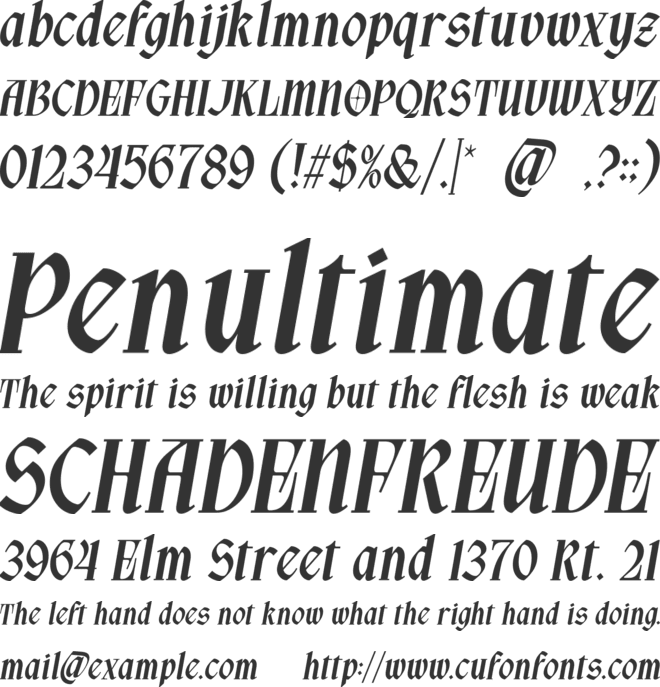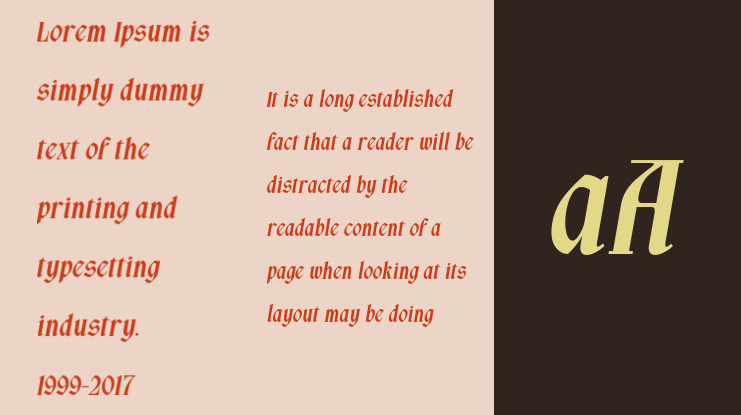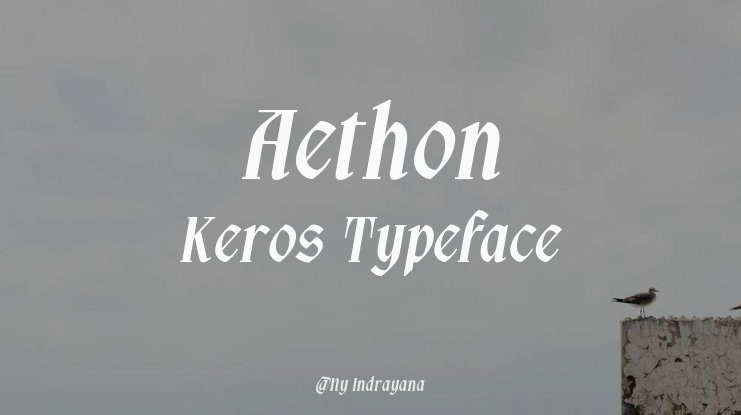
Aethon Keros Font
Where Ancient Myth Meets Future Chaos: The Ultimate Neo-Gothic Experience.
Unleash the untamed power of Aethon Keros, a blackletter typeface that refuses to be ignored. Inspired by the raw aggression of streetwear culture and the timeless intricate beauty of medieval calligraphy, this font is a "Grand Cross" of eras—blending the divinity of the renaissance with the rebellion of modern brutalism.
Aethon Keros is not just a font; it is a visual weapon. It features sharp, deadly strokes contrasted by elaborate, flowing swashes that mimic the movement of a stallion in battle. Whether you are designing for a high-end streetwear brand, a heavy metal album cover, or an avant-garde editorial spread, Aethon Keros delivers a look that is both malevolent and majestic.